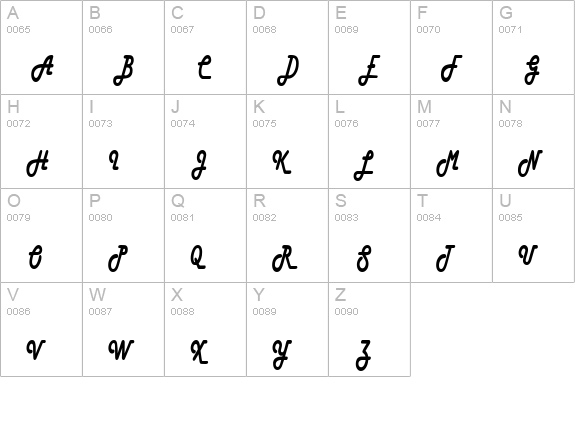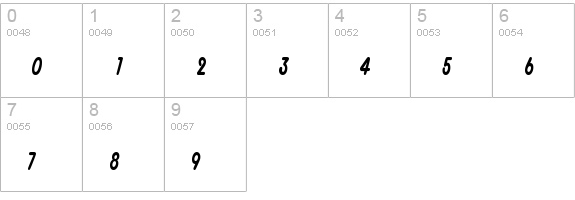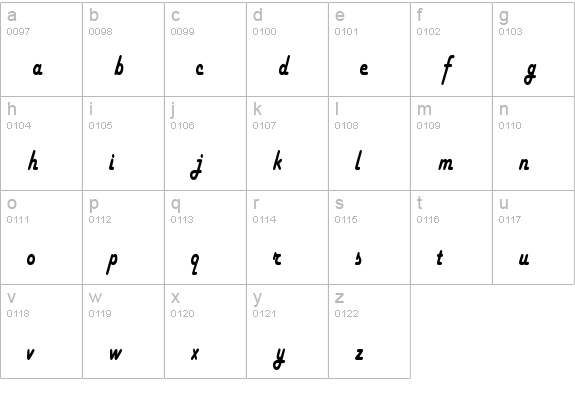
HamburgerCondensed Font Details
HamburgerCondensed is a bold and playful font that brings a touch of fun to any design. With its condensed letterforms and quirky details, this font is perfect for adding a youthful and energetic vibe to your projects. The unique design of HamburgerCondensed makes it stand out from the crowd, with its rounded edges and exaggerated curves. It captures the essence of casual handwritten lettering, while still maintaining legibility and clarity. Whether you're designing a poster, a logo, or a social media graphic, HamburgerCondensed will make a bold statement. Its high readability ensures that your message is delivered loud and clear, while its distinctive style adds a touch of personality to your designs. And the best part? HamburgerCondensed is available for free download at FontsMarket.com. That's right, you can add this amazing font to your collection without spending a dime. So why wait? Grab HamburgerCondensed now and let your creativity run wild!